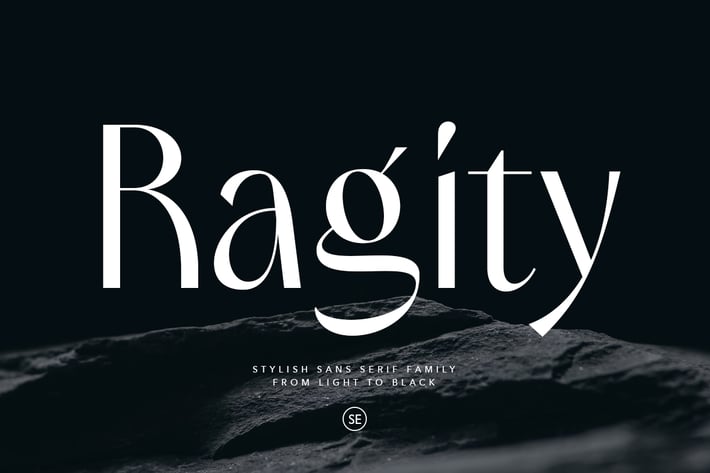
Ragity - Stylish Sans (7 FONTS)
Ragity is a stylish and modern sans that have minimalist looks with beautiful details. You can use this font for any purposes such as wedding invitation, logo, quotes, and also excellent for branding. With 7 weigh from Light to Black, you can choose how bold your project needs. This font also support multi language.!